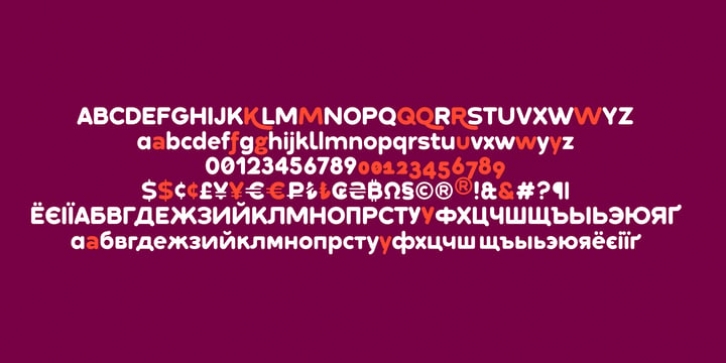
All styles have over 25 professional OpenType features and a wide range of Western languages coverage. with a variety of styles and substitute characters: sets 1, 2, 4, 10, 11.
Furthermore, operational styles 6 and 7 for the fit-derived SI units format and pricing styles: sets 5, 8, and 9 for business and marketing, ADS and web design, branding, or products design, as well as other opentype features such as ligatures, old-style numerals, ordinals, swashes,...